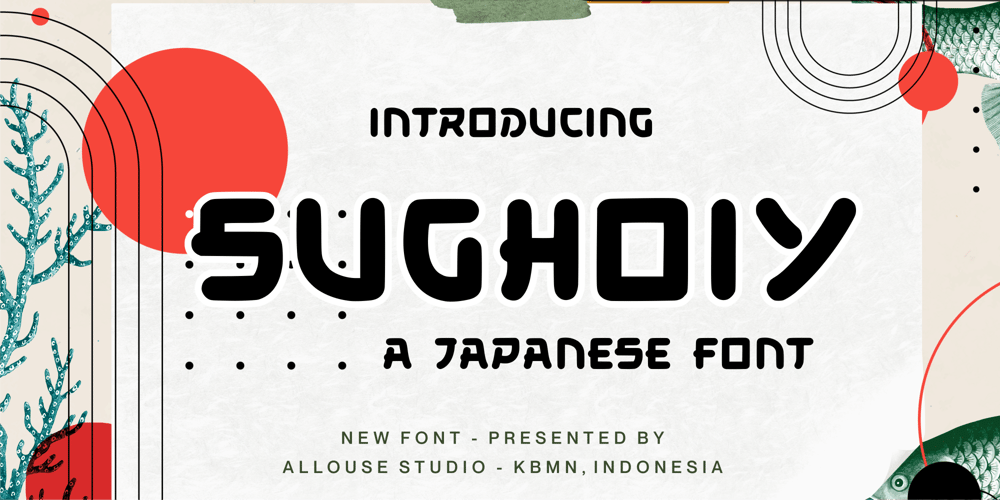
Sughoiy
Sughoiy font
Sughoiy Font Family was designed by Fachrizal Yusuf and published by Allouse Studio. Sughoiy contains 1 styles and family package options. Proudly Presenting, Sughoiy A Japanese Bold Font.Sughoiy is perfect for any titles, logo, product packaging, branding project, megazine, social media, wedding, or just used to express words above the background.Sughoiy also come with Multi-Lingual Support.Enjoy the font, feel free to comment or feedback, send me PM or email. Thank You!